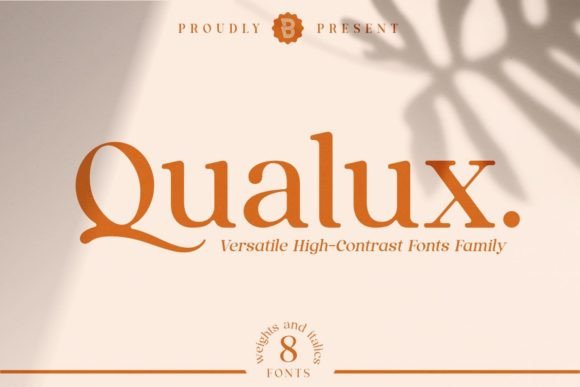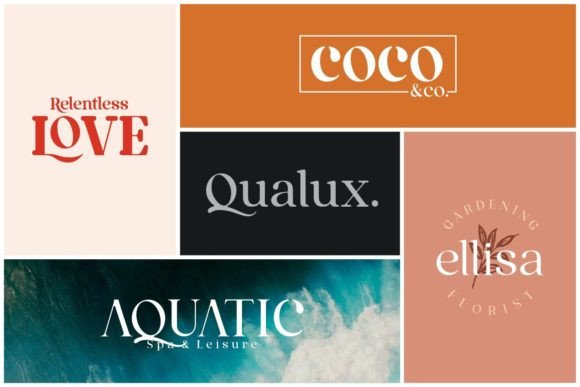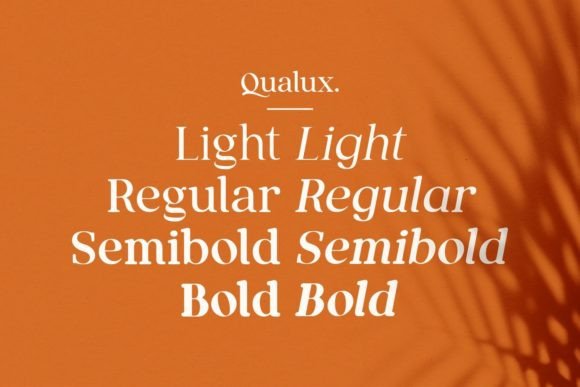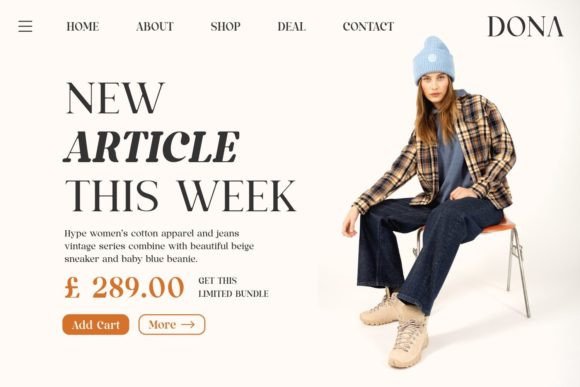
Qualux Font
About the Qualux Font
The wait is over! The incredible Qualux Font is now available for your design toolkit. Behold a luxurious serif font that evokes the essence of a bygone era. Its elegant curves and intricate details exude sophistication and class. This vintage-inspired typeface is perfect for high-end branding, editorial design, and any project that requires a touch of old-world charm. Let Qualux’s timeless beauty elevate your creations.
Qualux excels in headline treatments, logos, and short-form text within branding materials and high-end packaging. Its ornate details are less effective in body copy or UI contexts where readability at smaller sizes is crucial. Avoid using it for lengthy paragraphs or website content.
The font’s elegant, yet somewhat formal personality pairs well with clean sans-serifs like Montserrat or Lato for a balanced contrast. For a more luxurious feel, consider pairing it with a delicate script font like Great Vibes for added flourish in secondary text elements. Alternatively, a geometric sans-serif like Futura would create a modern yet sophisticated combination.
Qualux projects an air of refined elegance and timeless sophistication, making it ideal for brands aiming for a classic, high-quality image. Think luxury goods, heritage brands, or projects needing a sense of history and prestige.
Qualux Font Usage Examples